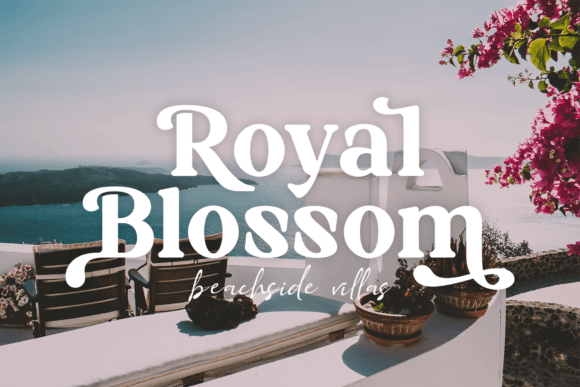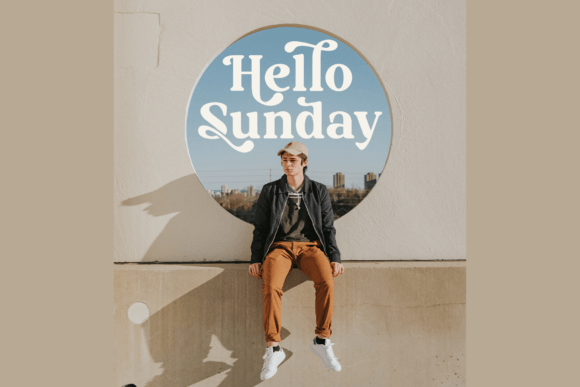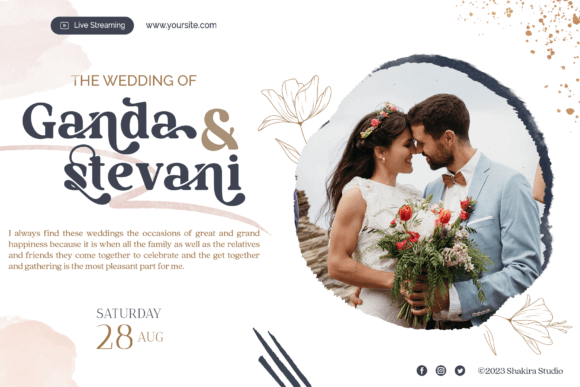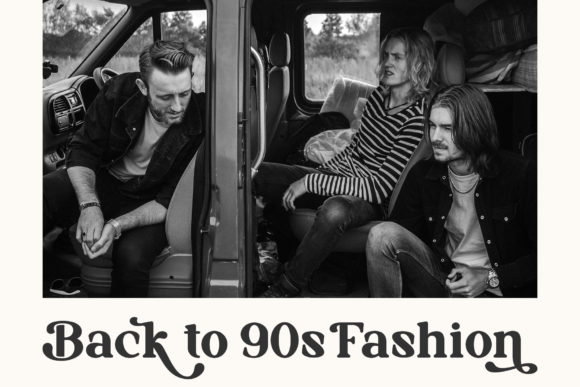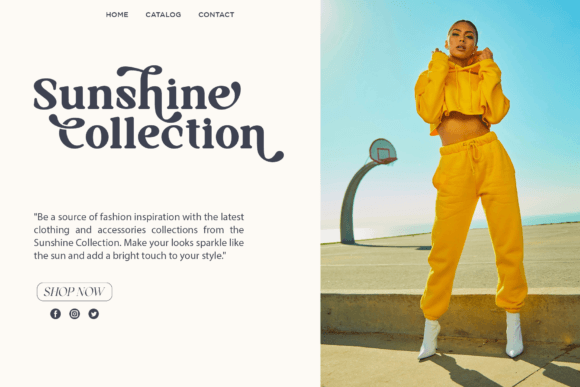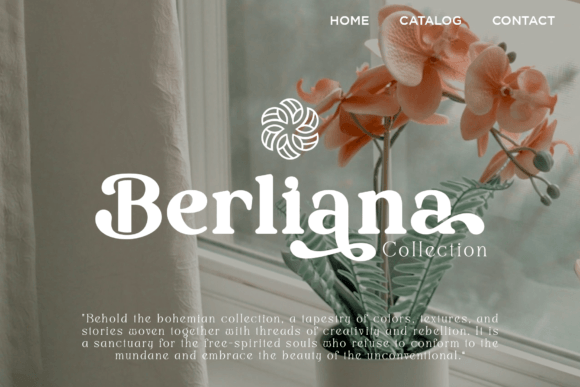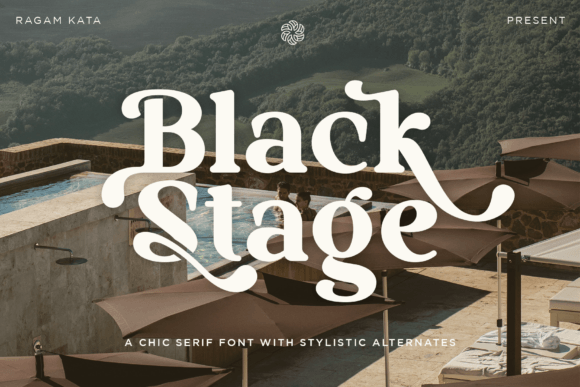
Introducing Black Stage Font: A Timeless Elegance with a Retro Twist
Are you on the hunt for a font that exudes classic charm and sophistication? Look no further than the Black Stage font, a captivating retro serif font that combines the elegance of a bygone era with a modern twist. This beautiful font is perfect for designers and crafters seeking to add a touch of nostalgia and refinement to their work.
The Unique Characteristics of Black Stage Font
Black Stage font boasts a distinctive blend of elegant serif style and vintage charm, making it an excellent choice for a wide range of design projects. Its classic appeal is reminiscent of old-school movie posters, while its refined features ensure it remains timeless and versatile. Whether you’re working on a title, poster, banner, or invitation card, Black Stage font is sure to make your design stand out.
Stylistic Alternates for Endless Design Possibilities
One of the standout features of Black Stage font is its stylistic alternates feature, which offers a range of style alternatives to help you create a unique text appearance. With just a few clicks, you can change the look and feel of your letters, adding variety and dynamism to your designs. This flexibility makes Black Stage font an excellent choice for designers seeking to experiment with different styles and moods.
Design Applications for Black Stage Font
Black Stage font is incredibly versatile and can be used for a multitude of design purposes, including:
• Title Design: Create stunning titles for movies, TV shows, or events with Black Stage font’s elegant and vintage flair.
• Poster Design: Add a touch of nostalgia and sophistication to your posters with Black Stage font’s classic appeal.
• Banner Design: Make your banners stand out with Black Stage font’s unique blend of elegance and playfulness.
• Invitation Cards: Create beautiful and memorable invitation cards for special occasions, such as weddings, parties, or galas.
• Branding Design: Use Black Stage font to add a touch of vintage charm to your brand’s identity and marketing materials.
Why Choose Black Stage Font?
So, why should you choose Black Stage font for your next design project? Here are just a few compelling reasons:
• Unique Style: Black Stage font offers a distinctive blend of elegance and playfulness that’s sure to set your design apart.
• Flexibility: With its stylistic alternates feature, Black Stage font provides endless design possibilities.
• Timeless Appeal: Black Stage font’s classic charm ensures it will remain stylish and relevant for years to come.
• Ease of Use: Black Stage font is easy to use and integrate into your design workflow.
Tips for Getting the Most Out of Black Stage Font
To get the most out of Black Stage font, here are a few expert tips:
• Experiment with Stylistic Alternates: Don’t be afraid to try out different stylistic alternates to find the perfect look for your design.
• Mix and Match: Combine Black Stage font with other fonts to create a unique and eye-catching design.
• Pay Attention to Kerning: Make sure to adjust the kerning to ensure your text looks balanced and visually appealing.
Black Stage font is a charming and eye-catching retro serif font that offers a unique blend of elegance and playfulness. With its stylistic alternates feature, flexibility, and timeless appeal, it’s an excellent choice for designers and crafters seeking to add a touch of nostalgia and sophistication to their work. Whether you’re working on a title, poster, banner, or invitation card, Black Stage font is sure to make your design stand out. So why wait? Download Black Stage font today and start creating stunning designs that exude classic charm and refinement.